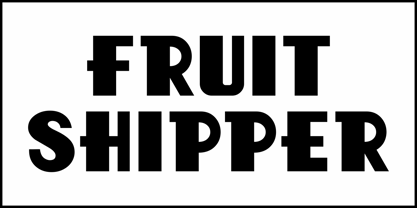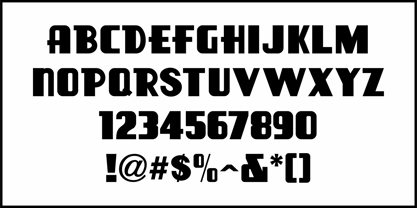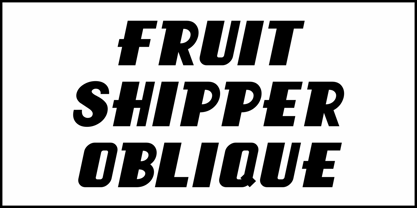
Fruit Shipper JNL
by Jeff Levine
The ultra bold, Art Deco sans serif hand lettering found on a 1930s Spanish fruit crate label from the A. Valldecabres company served as the model for Fruit Shipper JNL, which is available in both regular and oblique versions.